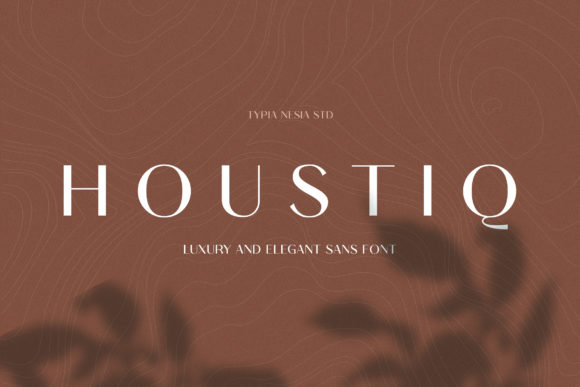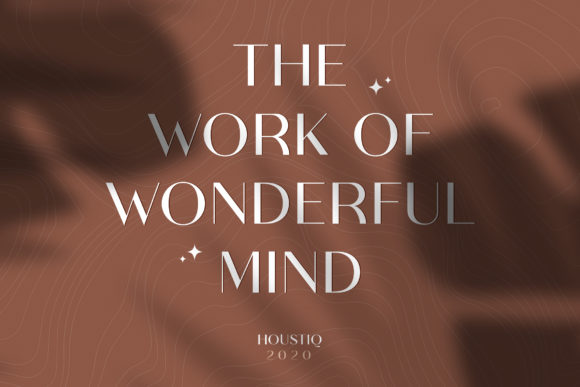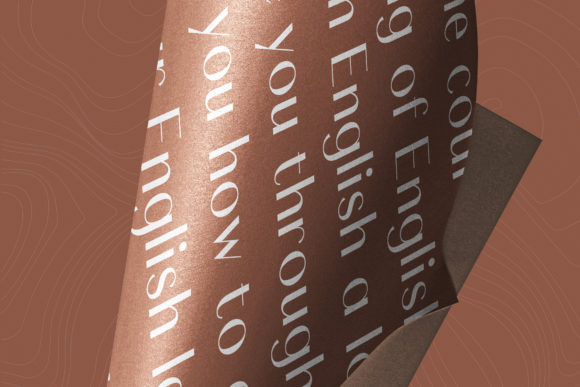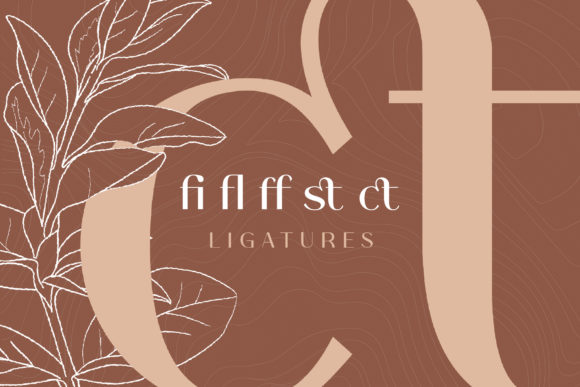
Houstiq Font: Elegant Sans Serif for Modern Logo Design & Branding
About the Houstiq Font
The Houstiq Font offers a perfect balance of form and function for your design needs. Houstiq is an elegant and distinct sans serif font. It can easily be matched to an incredibly large set of projects, so add it to your creative ideas and notice how it makes them stand out!
Houstiq’s elegant demeanor makes it ideal for headlines, branding projects requiring a sophisticated touch, and short-form text on packaging or posters. Its refined forms, however, aren’t well-suited for body text or lengthy paragraphs; the subtle details might become visually fatiguing. Avoid using it in user interfaces where legibility at smaller sizes is crucial.
For effective pairings, consider complementing Houstiq’s elegance with a contrasting yet harmonious typeface. A warm, neutral serif like Garamond or a geometric sans-serif such as Futura would create visual balance. For a more modern feel, pair it with a clean, minimalist sans-serif like Lato.
Houstiq projects an overall sophisticated and modern personality. Its clean lines and balanced forms convey confidence and understated luxury, making it a strong choice for brands aiming for a premium or high-end image.
Houstiq Font Usage Examples
Houstiq Font Example